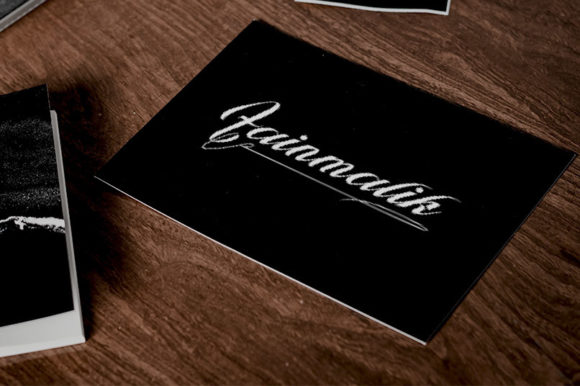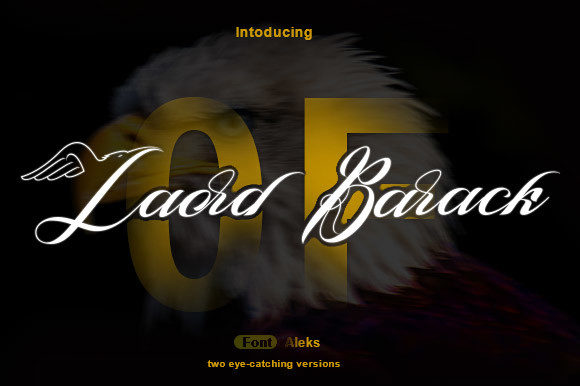
Aleks Font
About Aleks Font
Aleks is a calligraphic typeface that is both romantic and sweet. Its characters dance along the baseline, giving it a dynamic and lively feel. This font can add a touch of elegance and class to any of your design projects.
The romantic nature of Aleks makes it perfect for projects that require a touch of love and warmth. Whether you’re designing wedding invitations, love letters, or romantic quotes, Aleks can help you convey the right emotion and message.
One of the standout features of Aleks is its sweetness. This gives it a warm and inviting feel, making it perfect for projects that require a personal touch. Whether you’re designing a greeting card, a logo, or a social media post, Aleks can add that extra touch of sweetness that makes your designs stand out.
Aleks is not just a font; it’s a tool that can help you express your creativity. Its dancing characters and elegant style can bring a sense of joy and elegance to your designs, making them more appealing and engaging. Whether you’re designing for a client or for your own personal projects, Aleks can help you convey the right emotion and message.
Moreover, Aleks can add elegance and class to your designs. Its elegant and professional look can enhance your project’s overall aesthetic, making it more appealing to your audience. Whether you’re designing a logo, a business card, or a website, Aleks can help you create a consistent and professional look for your project.
In conclusion, Aleks is a romantic, sweet, and dynamic calligraphic typeface that is perfect for a wide range of projects. Its dancing characters and elegant style make it a valuable asset for any designer. So, whether you’re a professional designer or a hobbyist, Aleks is a font worth considering for your next project. Why not give Aleks a try and see how it can enhance your designs? You might be surprised at the difference it can make!